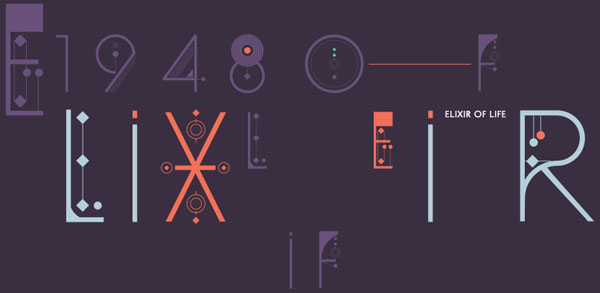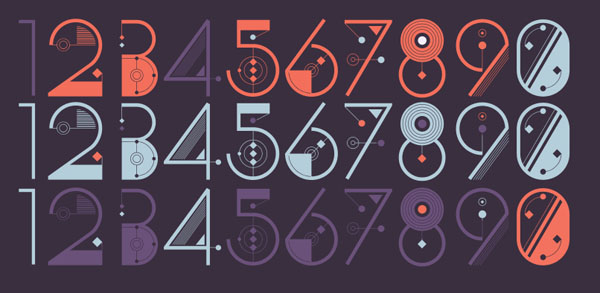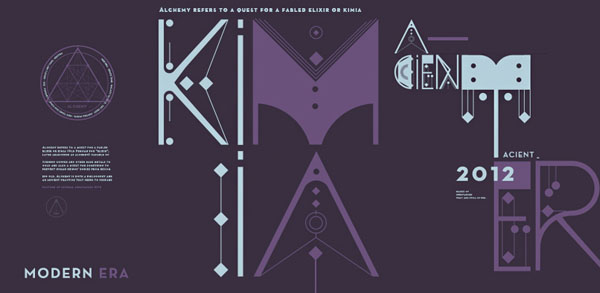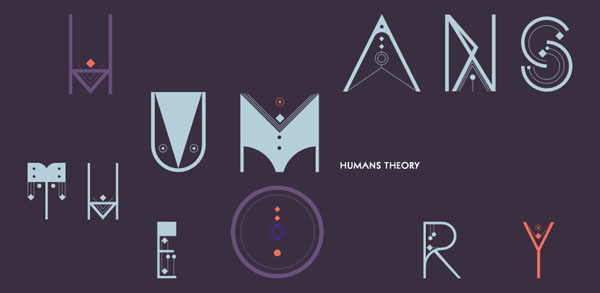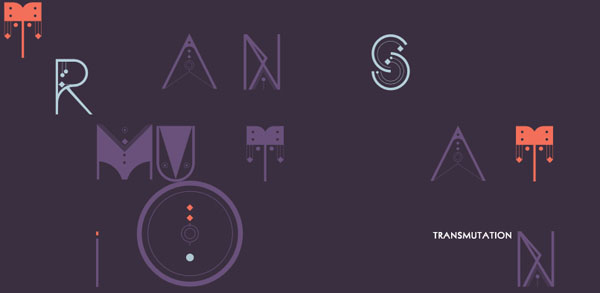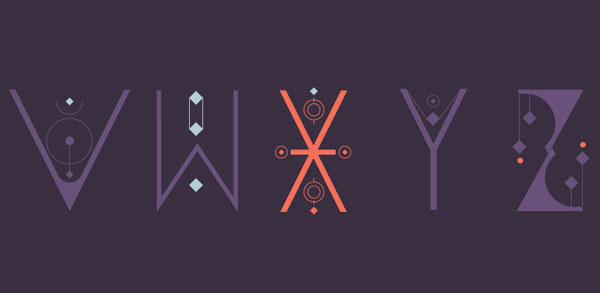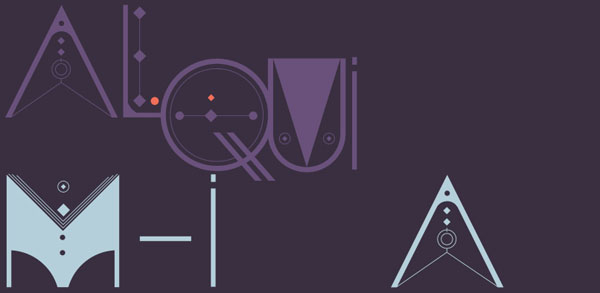
Alquimia – Graphic Font Design.
Alquimia is a graphic typeface designed by Luis Torres and Diego Rodriguez. This special graphic font design is both: contemporary and retro at the same time. Alquimia is higly inspired by elements, symbols or formulas used within the ancient art of alchemy. The designers combined a classically simple shape with a variety of symbols to create his unique typeface.